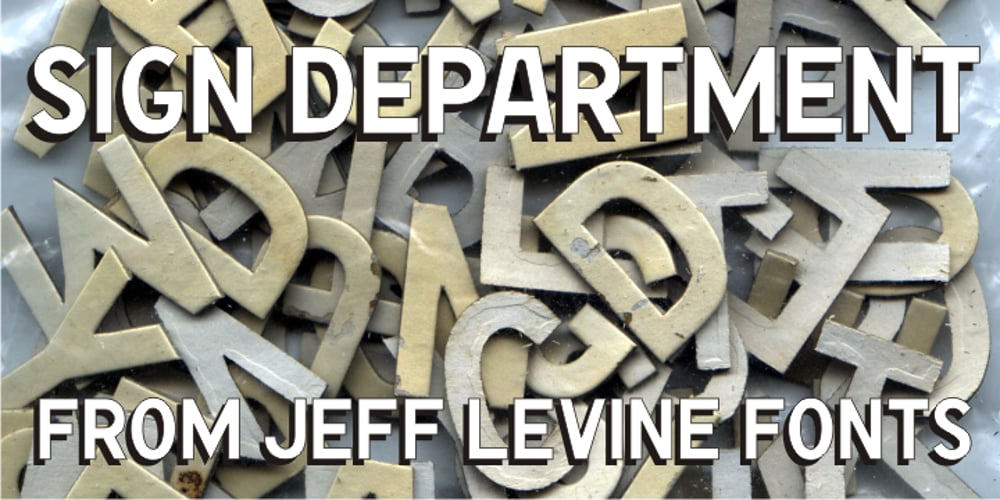
Sign Department JNL Font Family was designed by Jeff Levine and published by Jeff Levine. Sign Department JNL contains 1 styles and family package options. For decades – until the advent of affordable computer-generated signage – die-cut display letters were used for many applications. Stores, theaters, schools, charities and religious organizations would have their local sign shop design attractive posters and show cards utilizing these sturdy cardboard letters and numbers, giving a three-dimensional effect to the message. Sign Department JNL recreates one of the many styles of letters available at the time.